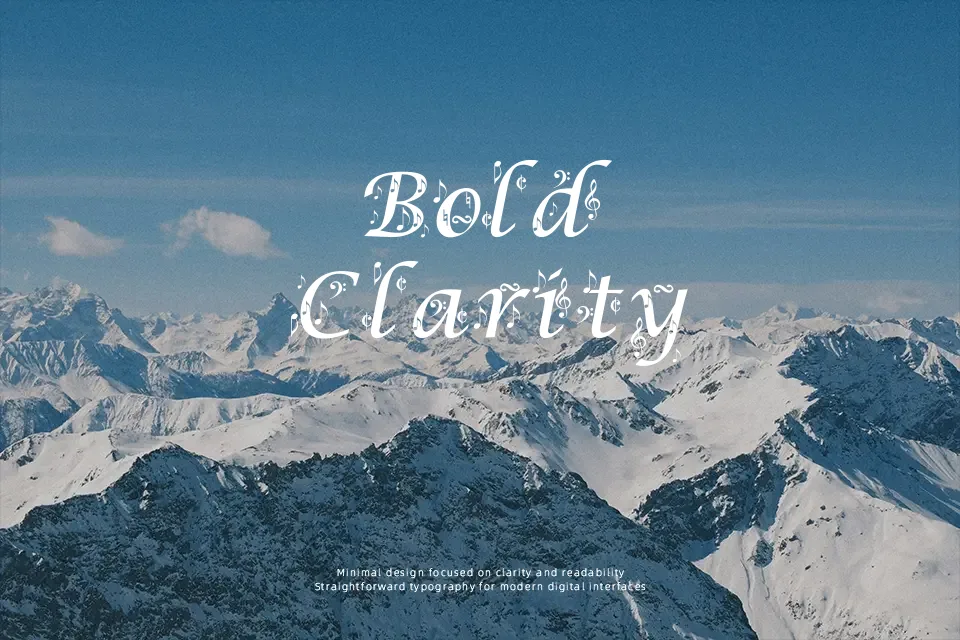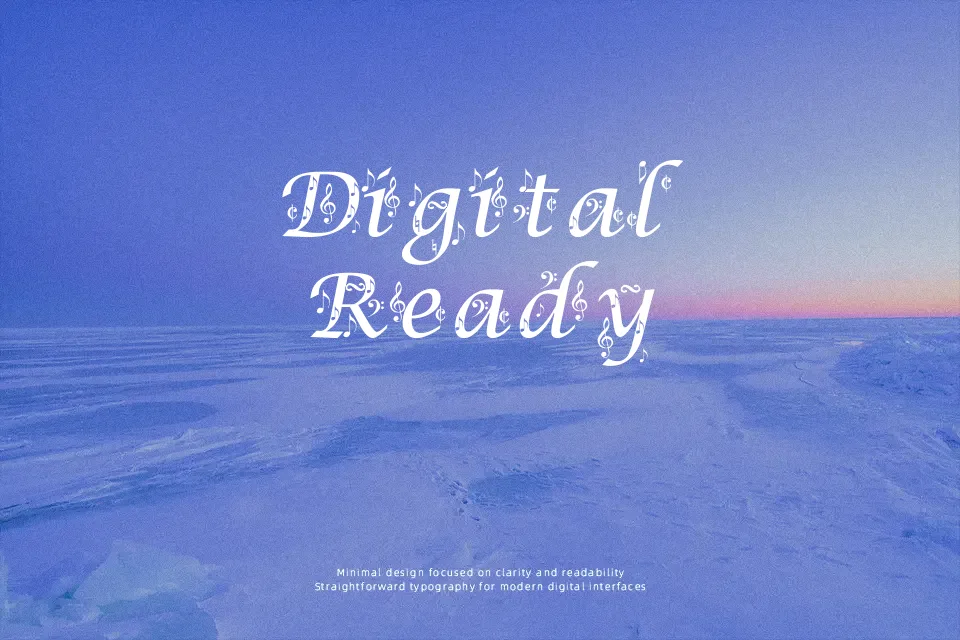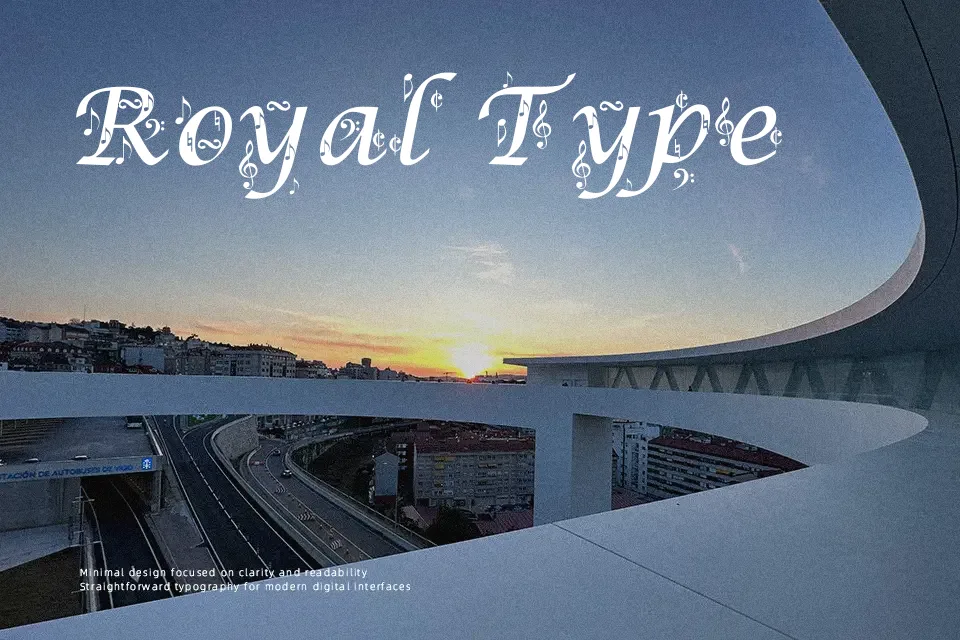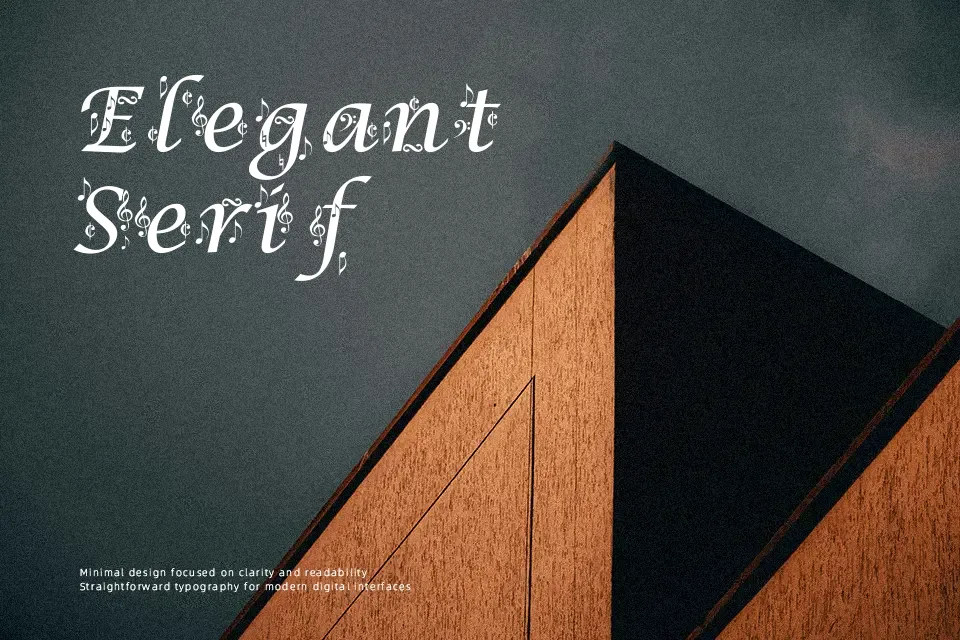
Symphony in ABC Font
Designed by Pearlygates
Symphony in ABC uses ornate decorative letterforms with sharp contrast, flourished details, and narrow proportions that create a dramatic display-oriented appearance. The strokes shift noticeably between fine and heavy areas, while the compact forms give uppercase words a formal, tightly composed rhythm. It reads most clearly in large headlines, titles, and short phrases where the individual shapes have room to show. The typeface can bring a theatrical or vintage-leaning character to printed graphics, but its detailed construction becomes harder to follow in small sizes and extended text. The spacing supports impactful display settings more effectively than continuous reading.
Best For: theater poster titles,album cover typography,book cover headlines,vintage event signage
Perfect for film, headline, and music, with a artistic and decorative style.